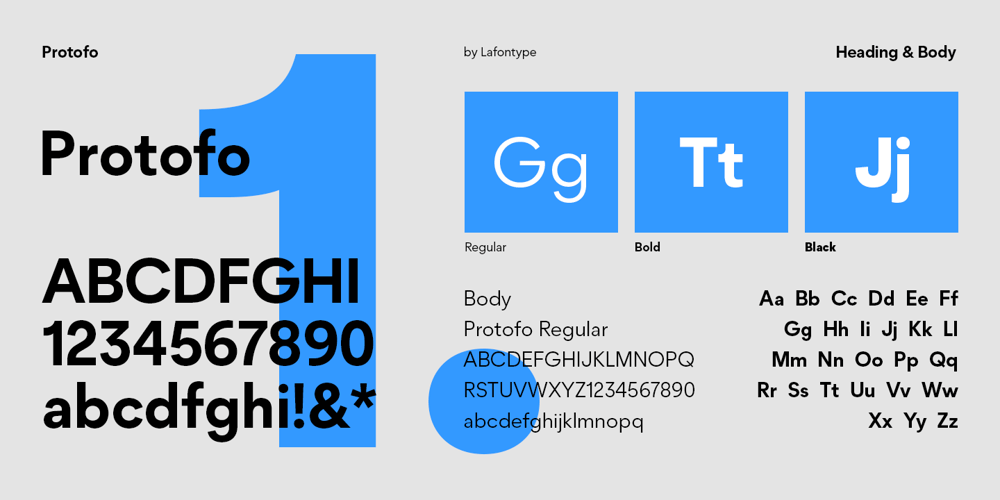
Protofo Font Family was designed by Anugrah Pasau and published by Lafontype. Protofo contains 16 styles and family package options. Protofo is a modern-humanist sans-serif with characters that features various geometric shapes — from square, round and triangle. Protofo comes in 16 styles — upright and italic — from thin to black with each equipped with features such as localized, ligature, fraction, ordinal, superscript, numerator, nominator, subscript, proportional and tabular numerals.Protofo is also equipped with extended latin letters which can represent multi languages so making it perfect for any kind of project (display, editorial, web, interface, app, etc).